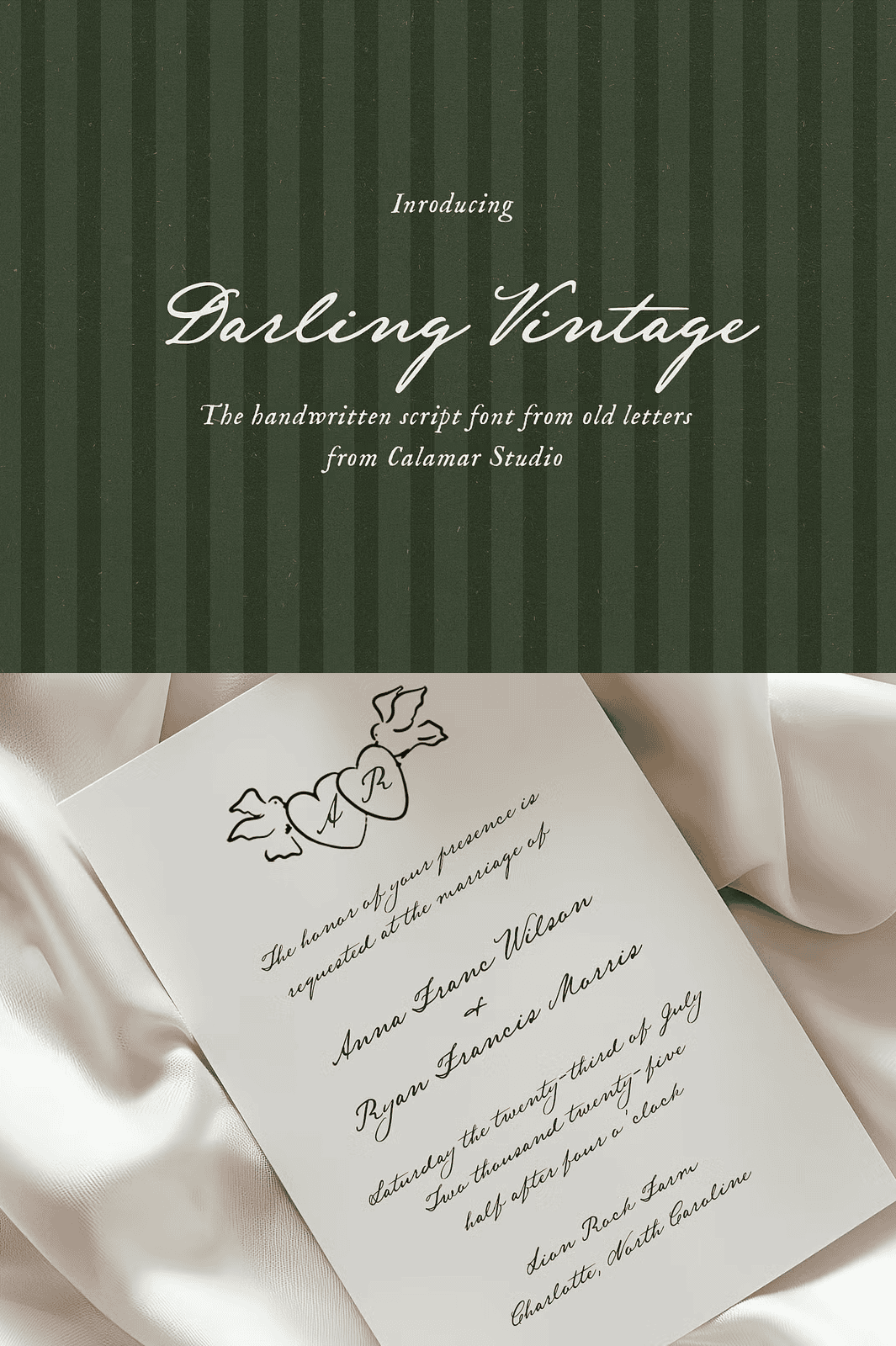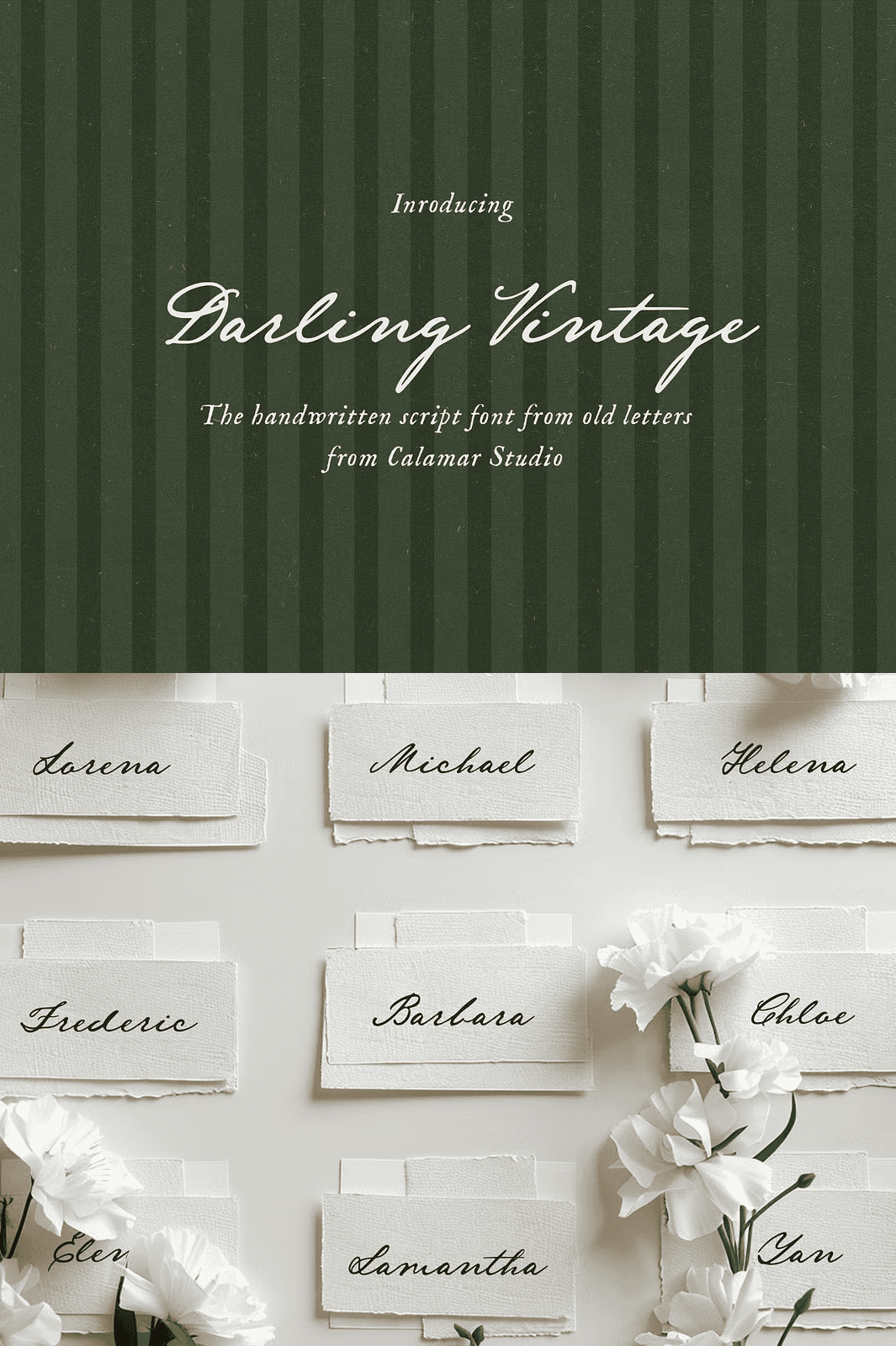
Bring Vintage Elegance to Life with Every Stroke
Step into the world of old-world charm with **Darling Vintage**, a beautifully crafted calligraphy script font inspired by classic manuscripts from the era of Jane Austen. This elegant handwriting captures the delicate balance between legibility and artistry — a true companion for designers seeking to infuse their work with romantic nostalgia and refined sophistication.
Crafted with care, Darling Vintage transforms modern digital design into a hand-written experience. Whether you’re designing wedding invitations, vintage-style posters, book covers, or elegant branding materials, this font delivers the authentic feel of a letter penned with grace and soul. Its fluid lines, subtle flourishes, and graceful transitions make it ideal for projects where sentiment and elegance meet.
Rich Typography Features for Creative Mastery
Unlock the full potential of Darling Vintage with its comprehensive character set. The font includes:
– ✅ Full uppercase and lowercase letters
– ✅ Complete set of numbers and punctuation
– ✅ 18 built-in ligatures for seamless flow
– ✅ 12 stylistic alternatives for creative variation
Enable OpenType features in your design software to activate ligatures and alternate characters — instantly elevating your text from simple to stunningly expressive. Each variation has been carefully designed to maintain typographic harmony, ensuring your composition remains polished and professional.
Perfect for Wedding Stationery & Vintage Design
Darling Vintage is especially made for **elegant wedding invitations**, bridal shower cards, and formal stationery. Pair it with minimalist layouts, soft pastel palettes, or delicate botanical illustrations to evoke a sense of timeless romance. Its balanced stroke weight and clear letterforms ensure readability without sacrificing beauty — a rare quality in vintage-style fonts.
Use it for:
– Hand-drawn wedding invitations
– Formal event announcements
– Romantic quotes and digital art
– Book cover titles with vintage themes
– Branding for boutique fashion, tea shops, or artisan crafts